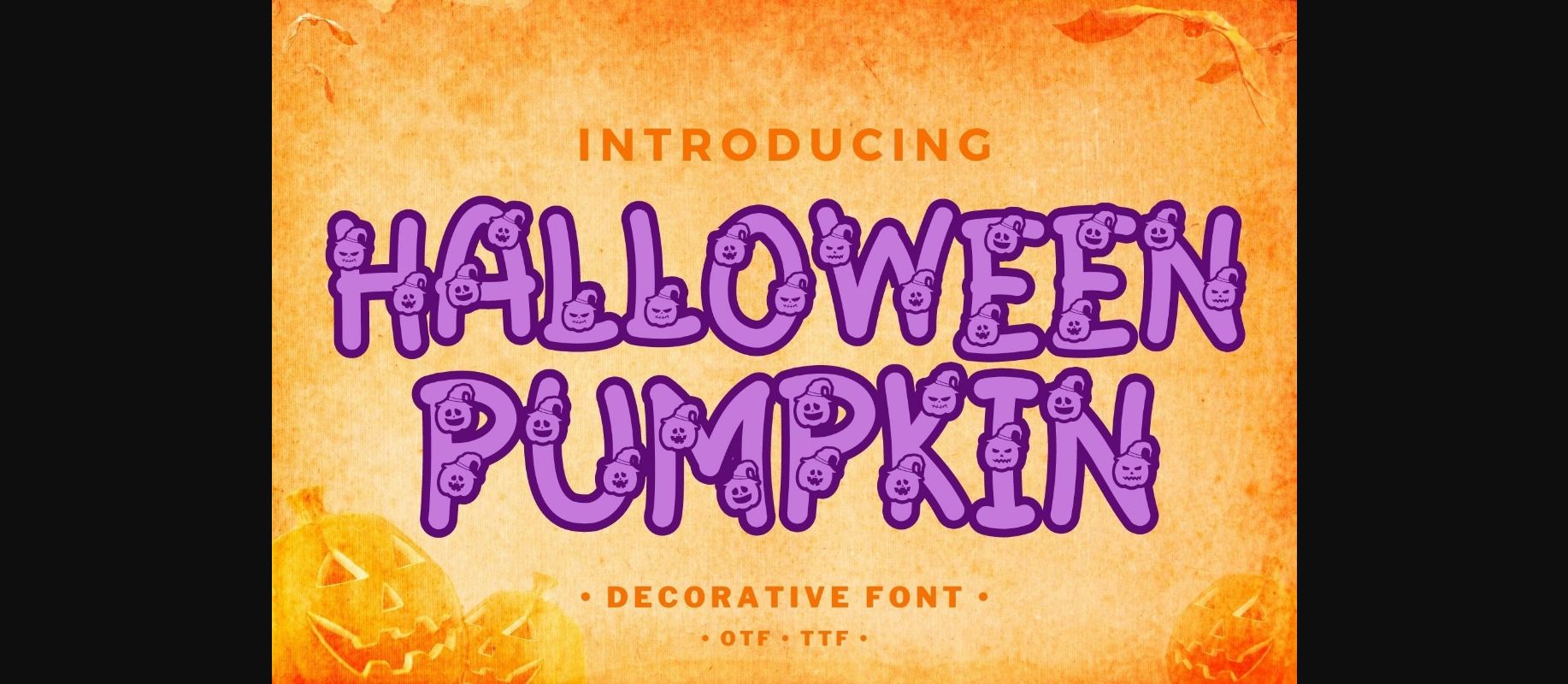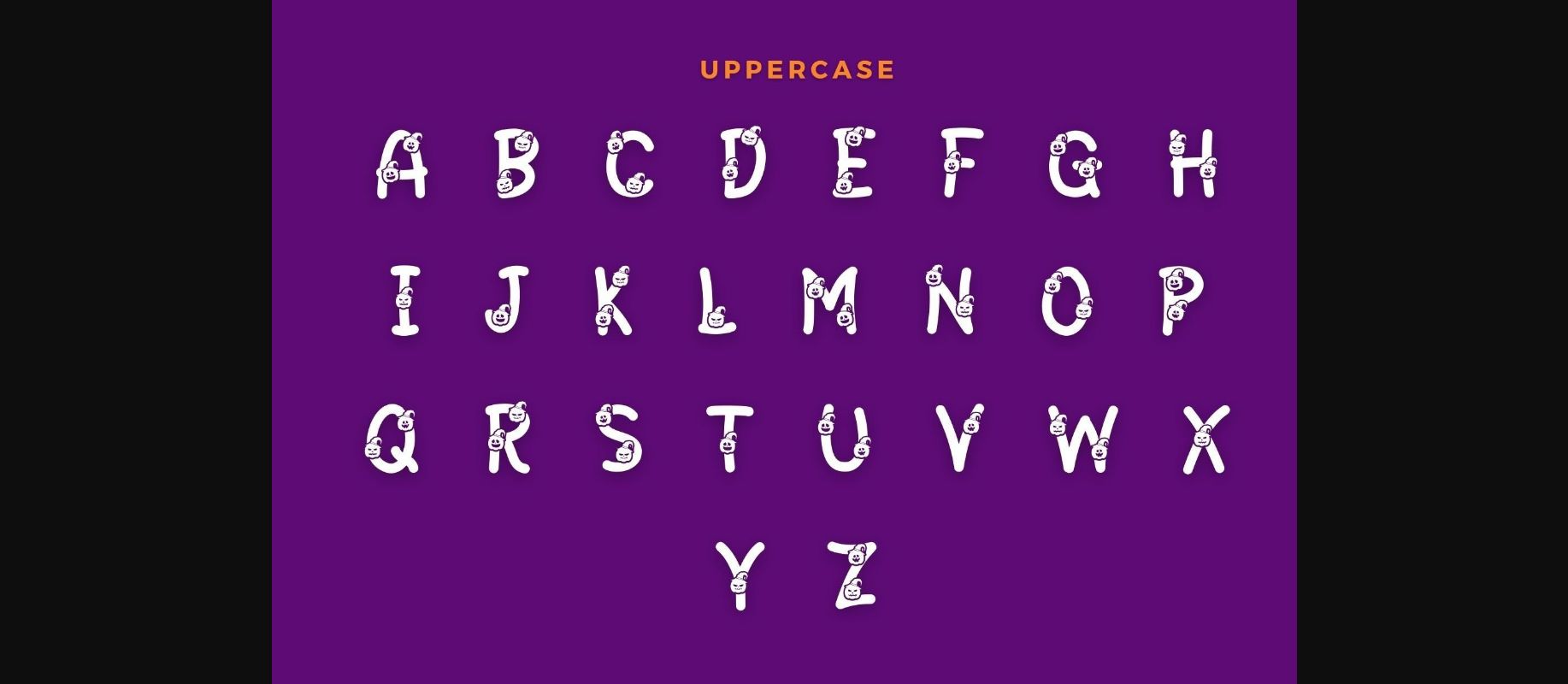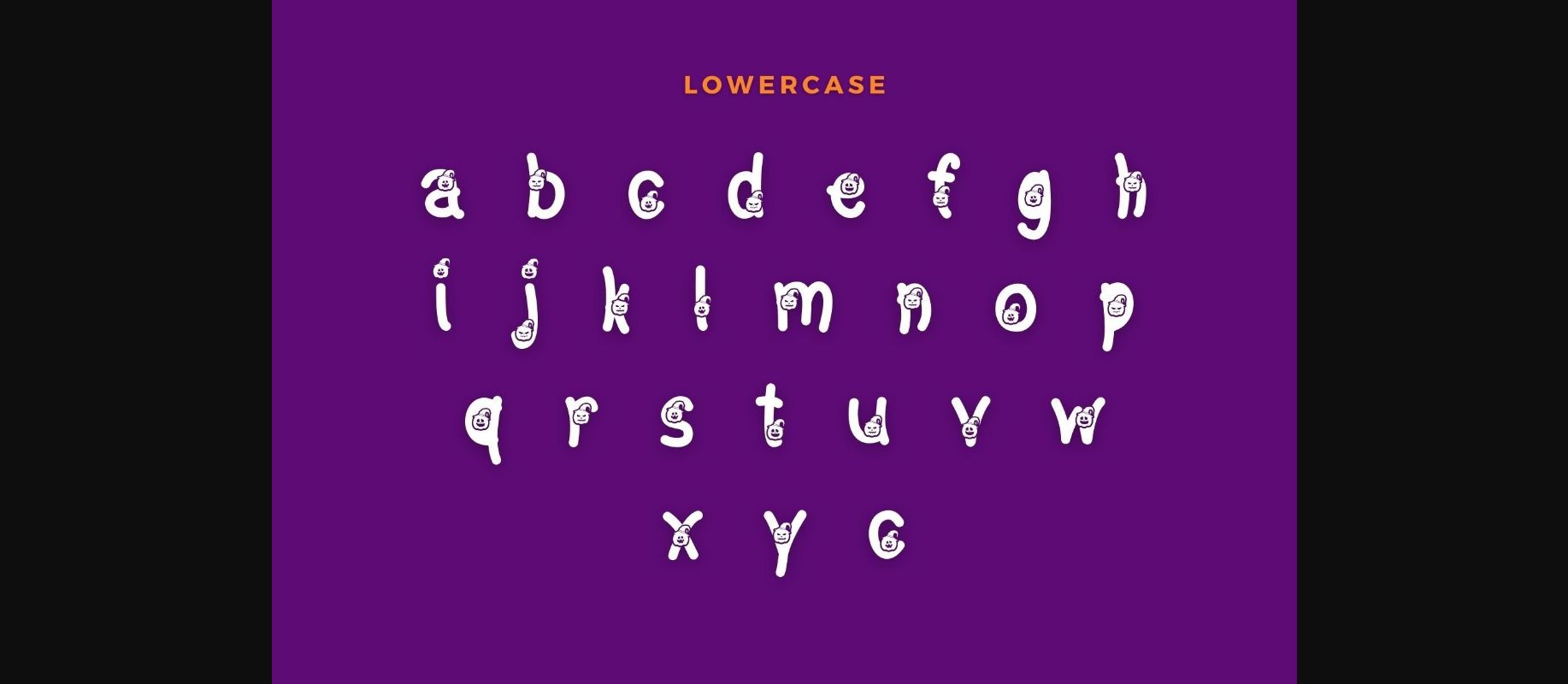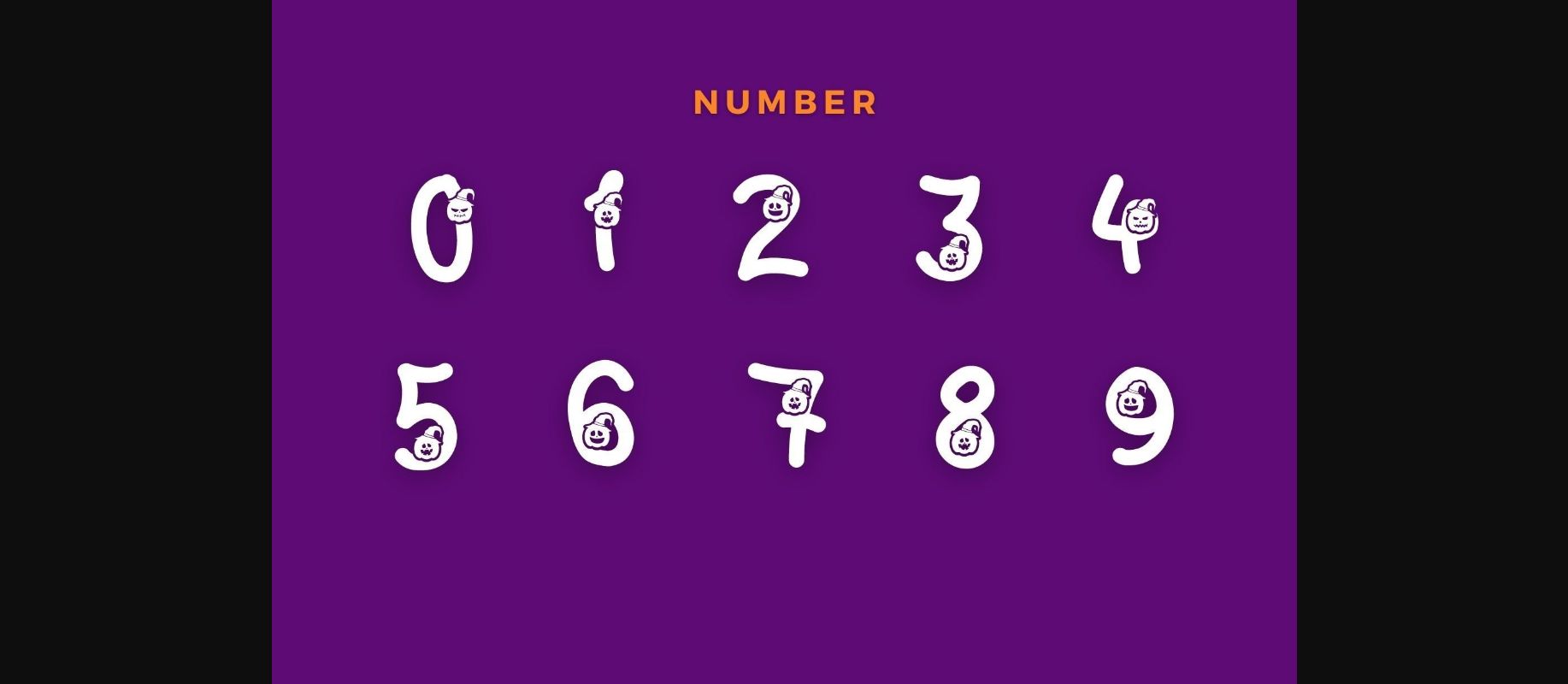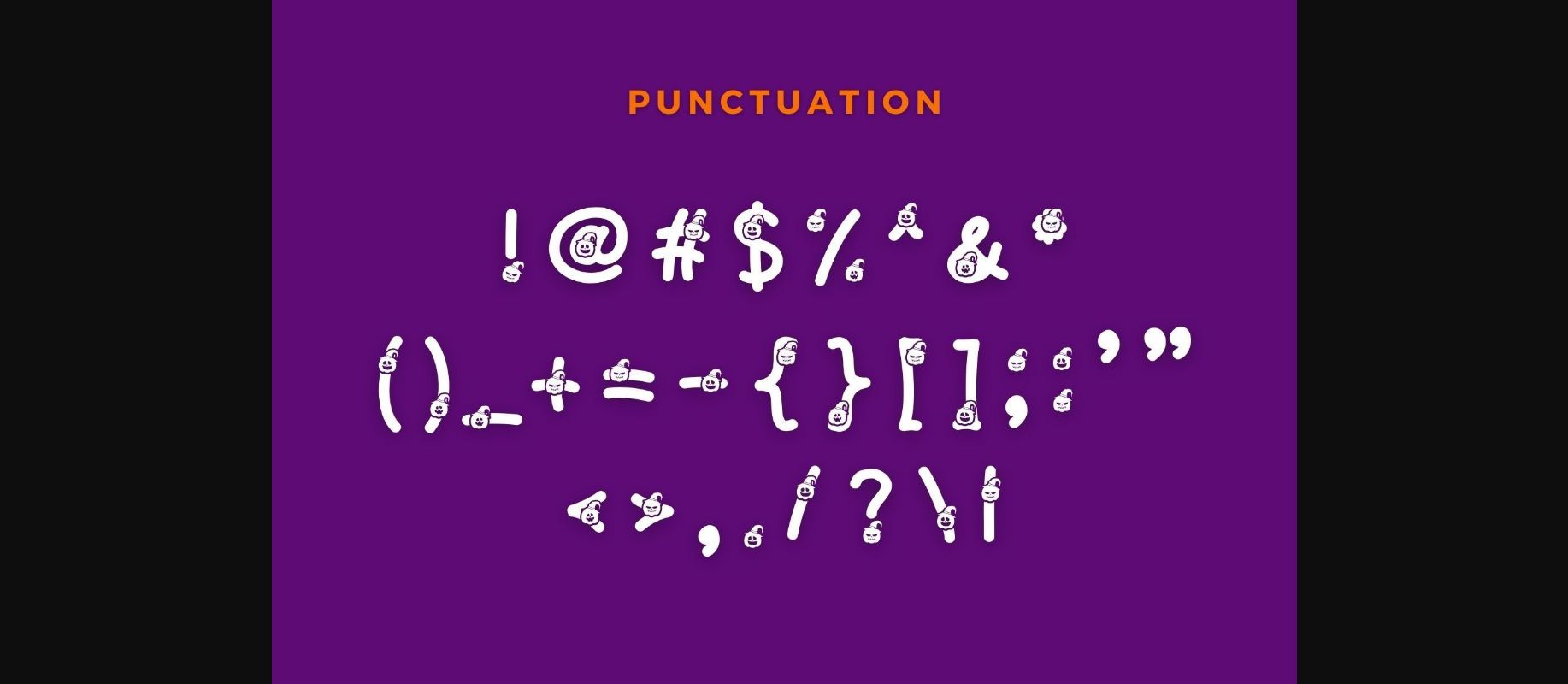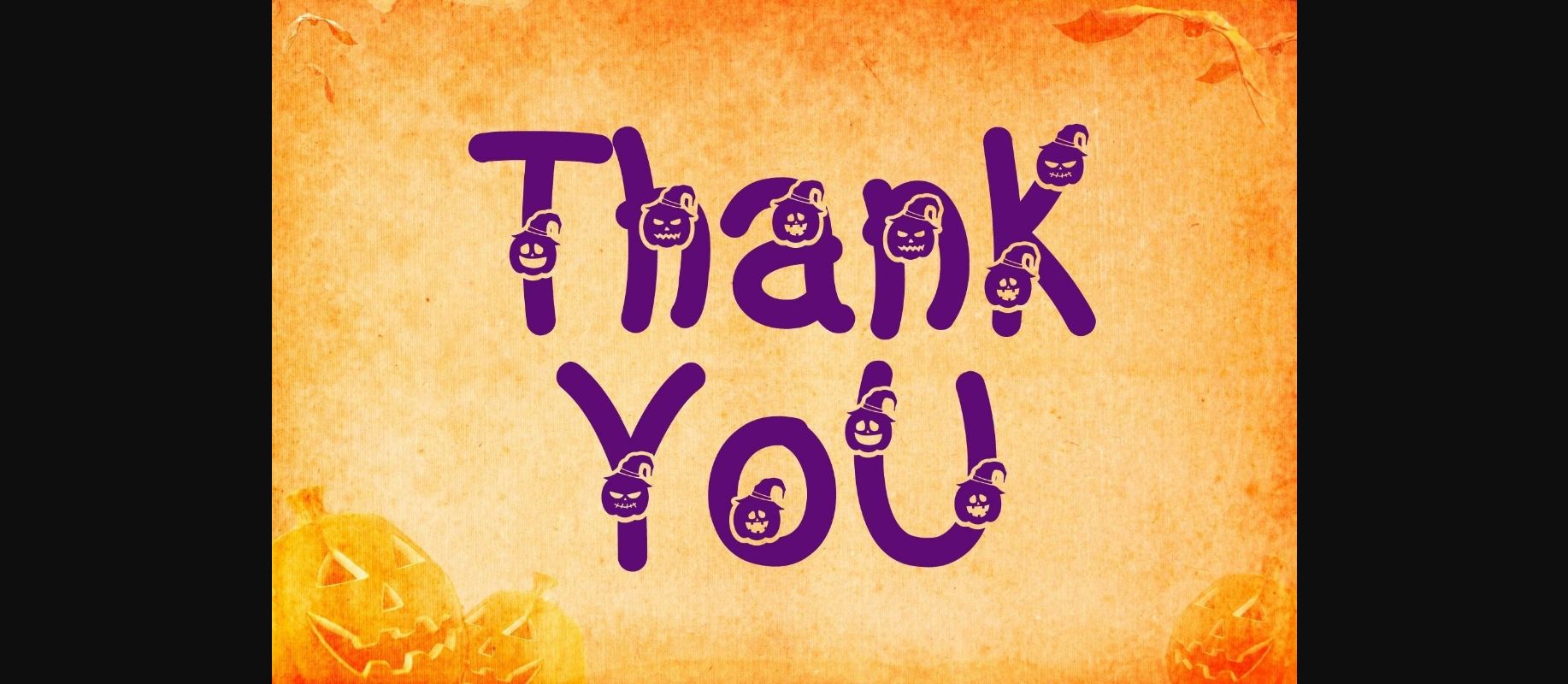
Halloween Pumpkin Font
About Halloween Pumpkin Font
Halloween Pumpkin is a scary and fun decorative font. It embodies playfulness and authenticity and is the perfect choice for all your favorite Halloween projects, or even for blog posts, logos, branding, ads, invitations, greeting cards, planners, photo albums, decorations, and much more. Add it to any of your designs, and enjoy the results!